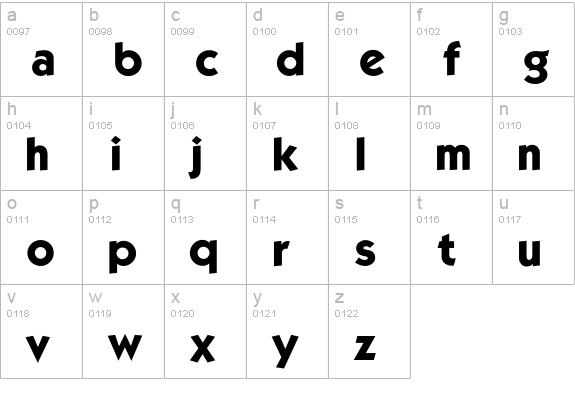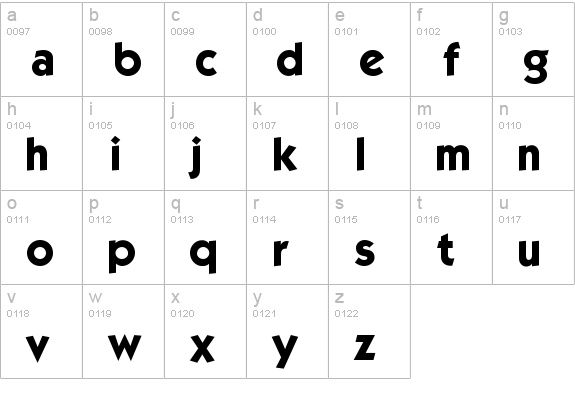
KabelBold Font Details
KabelBold font is a bold and powerful typeface that exudes confidence and dynamism. With its strong and distinct letterforms, this font is perfect for making a bold statement in any design project. Whether you're creating a stunning headline, a striking logo, or eye-catching signage, KabelBold will grab attention and leave a lasting impression. Not only does KabelBold offer exceptional aesthetics, but it also provides excellent legibility. Each letter is meticulously crafted to ensure clarity and readability, even at smaller sizes. This makes it a versatile font choice for various applications, from print to digital media. One of the best parts about KabelBold font is that it is available for free download at FontsMarket.com. This means that you can easily access this exceptional font without any cost or hassle. FontsMarket.com is a trusted source for fonts, providing a vast collection of high-quality typefaces for designers, artists, and enthusiasts. Embrace the power and versatility of KabelBold font in your next design project. Let its bold and captivating presence elevate your visual communication and convey your message with impact. Download KabelBold font for free at FontsMarket.com and unleash your creativity today.